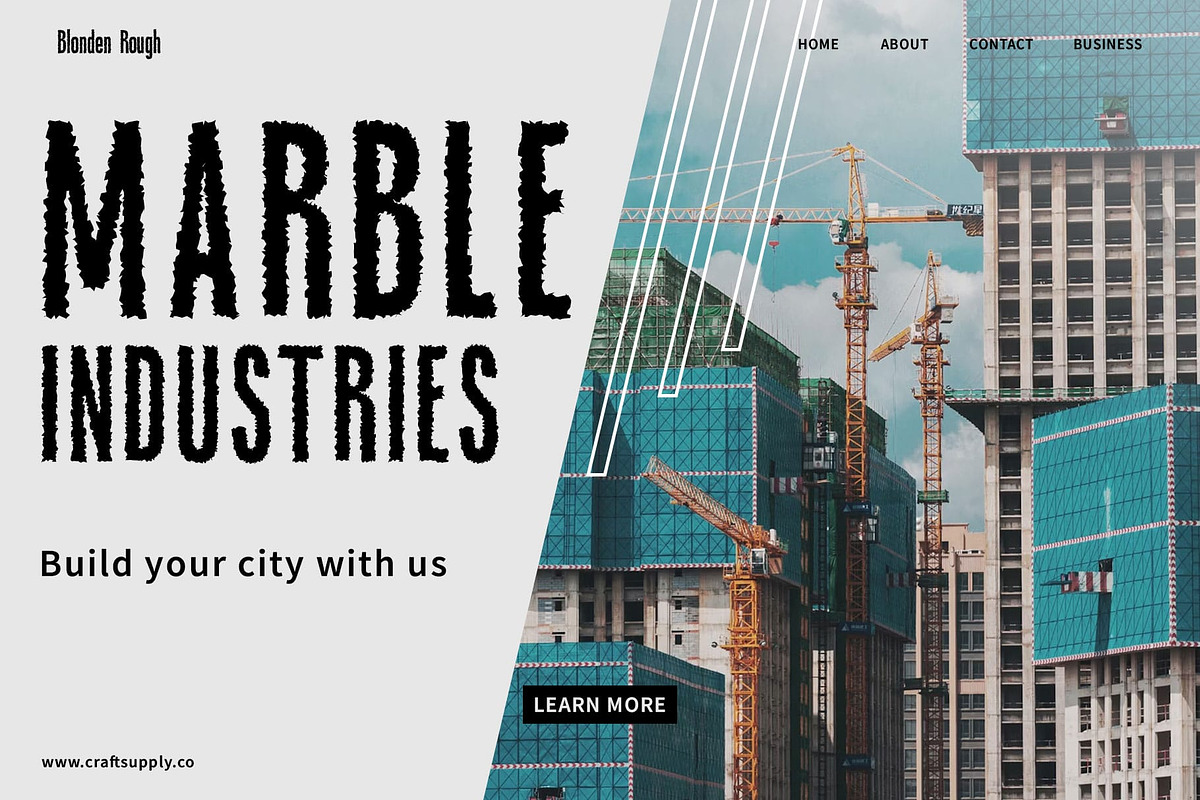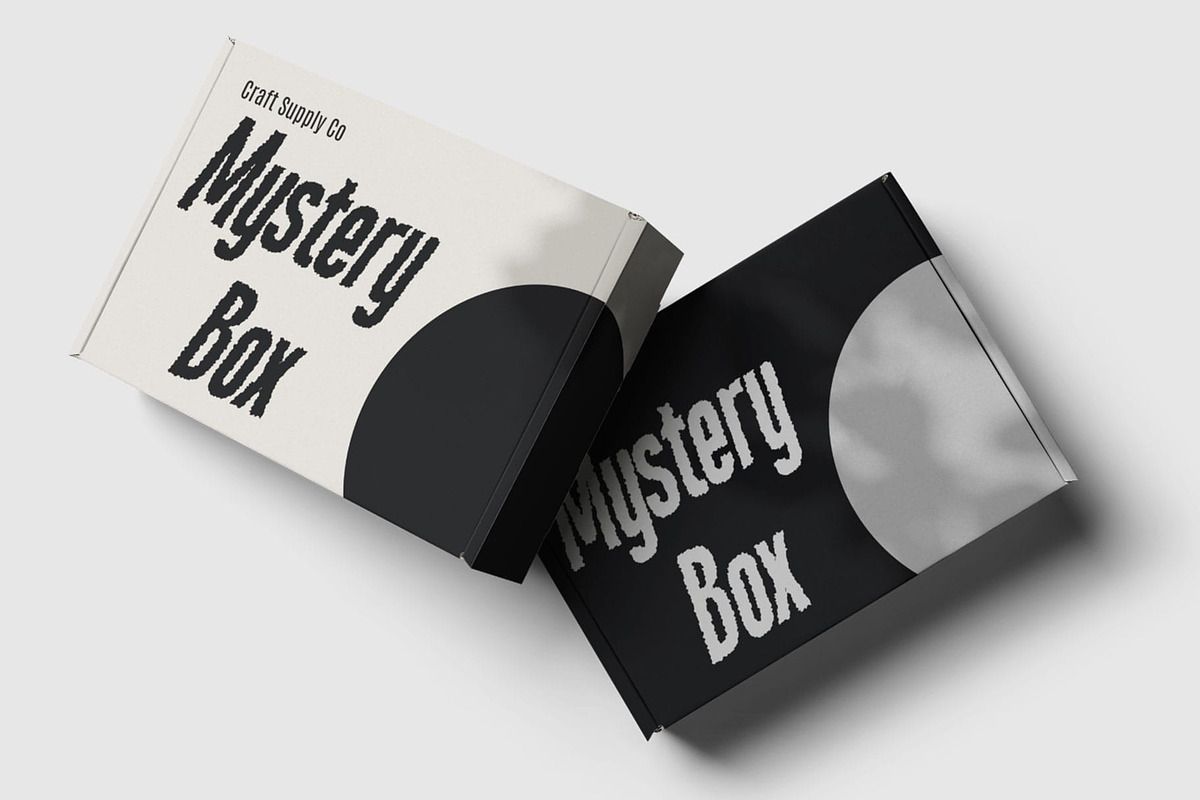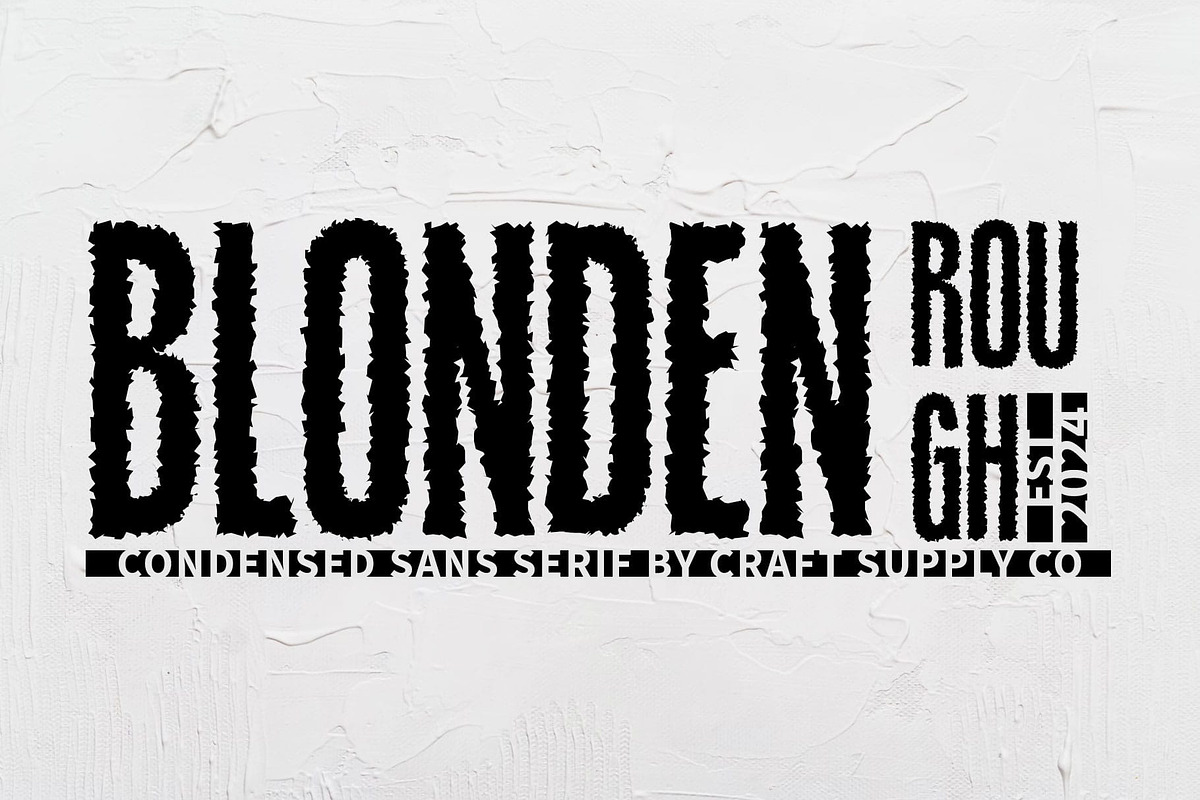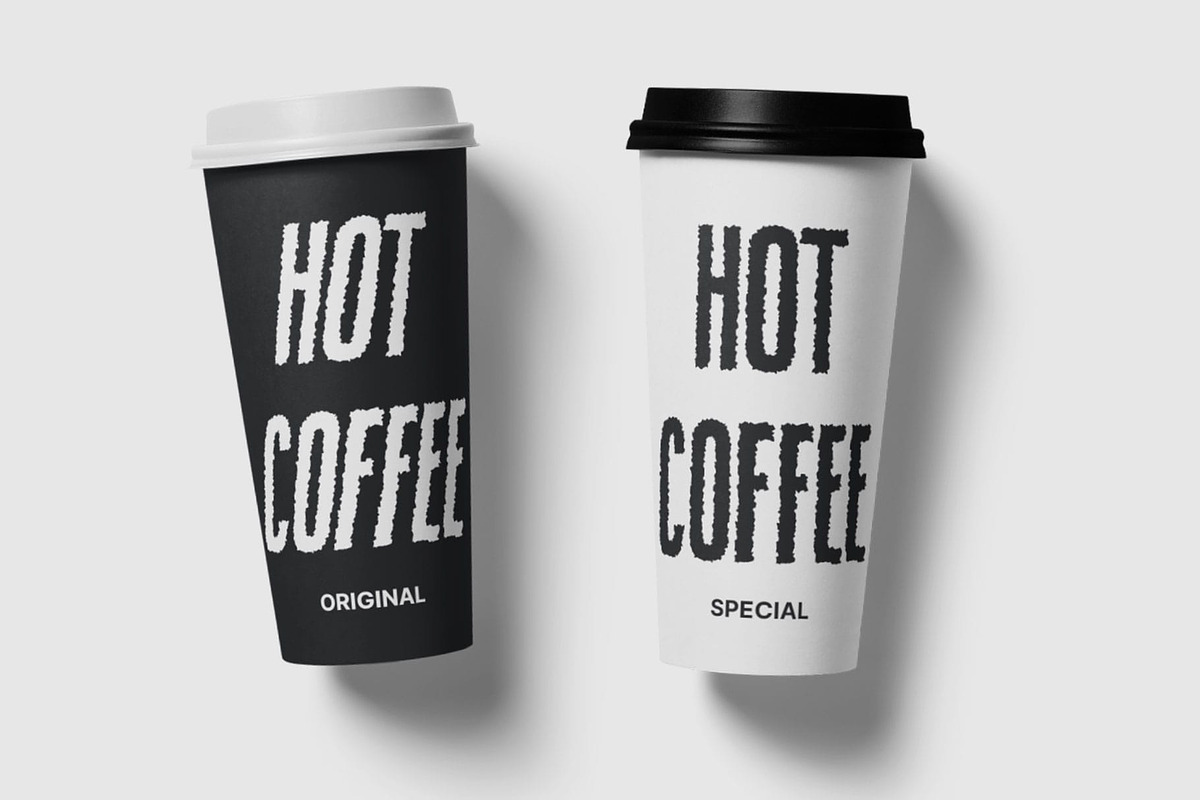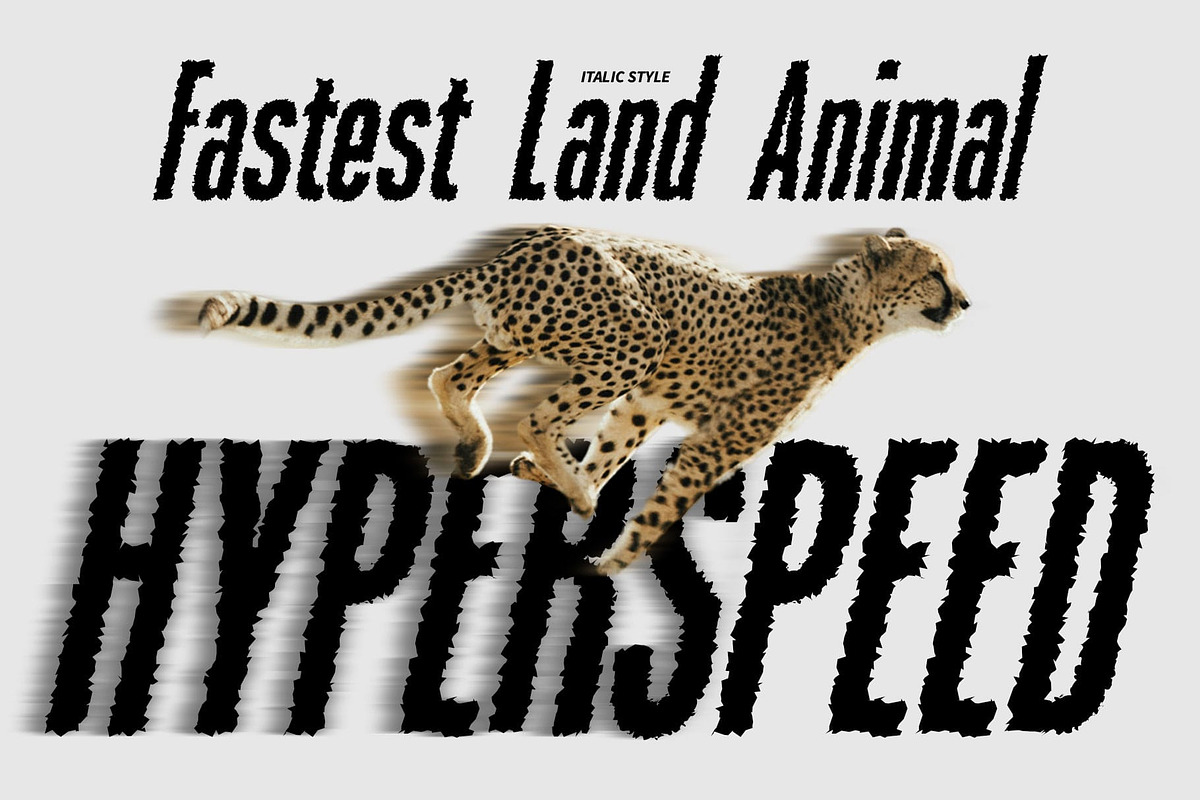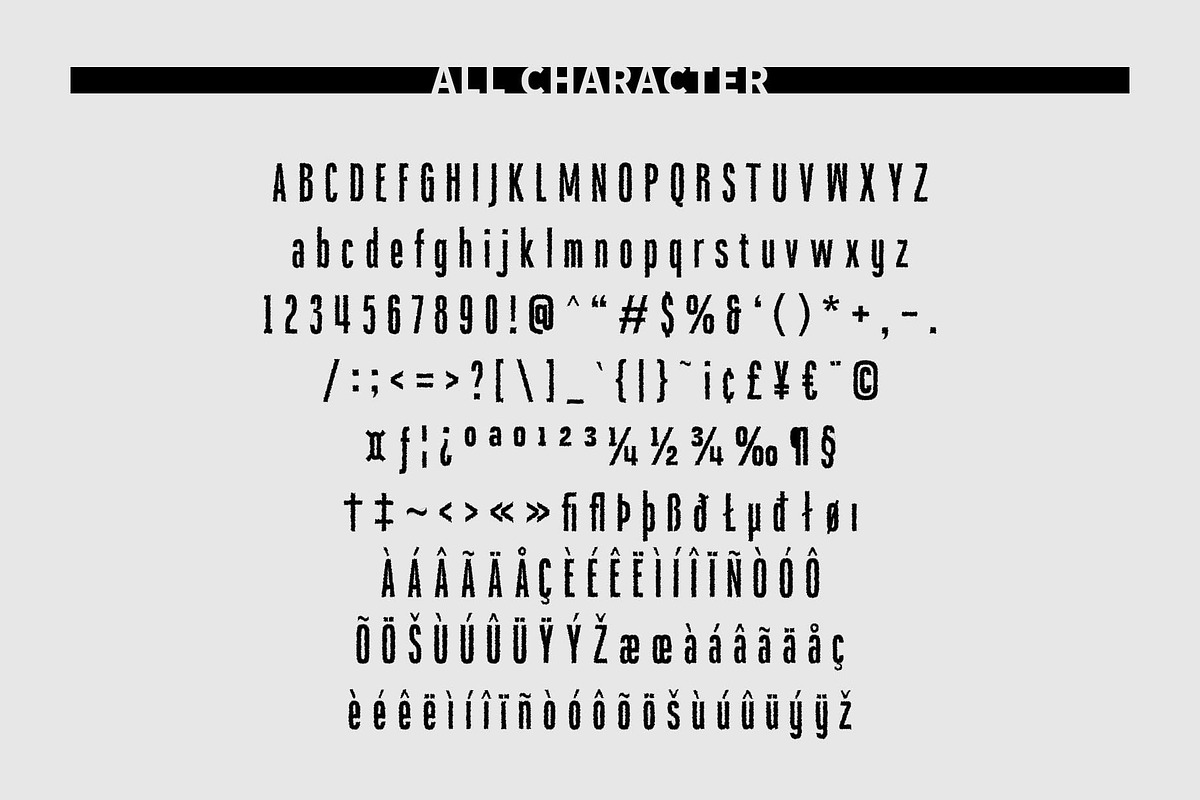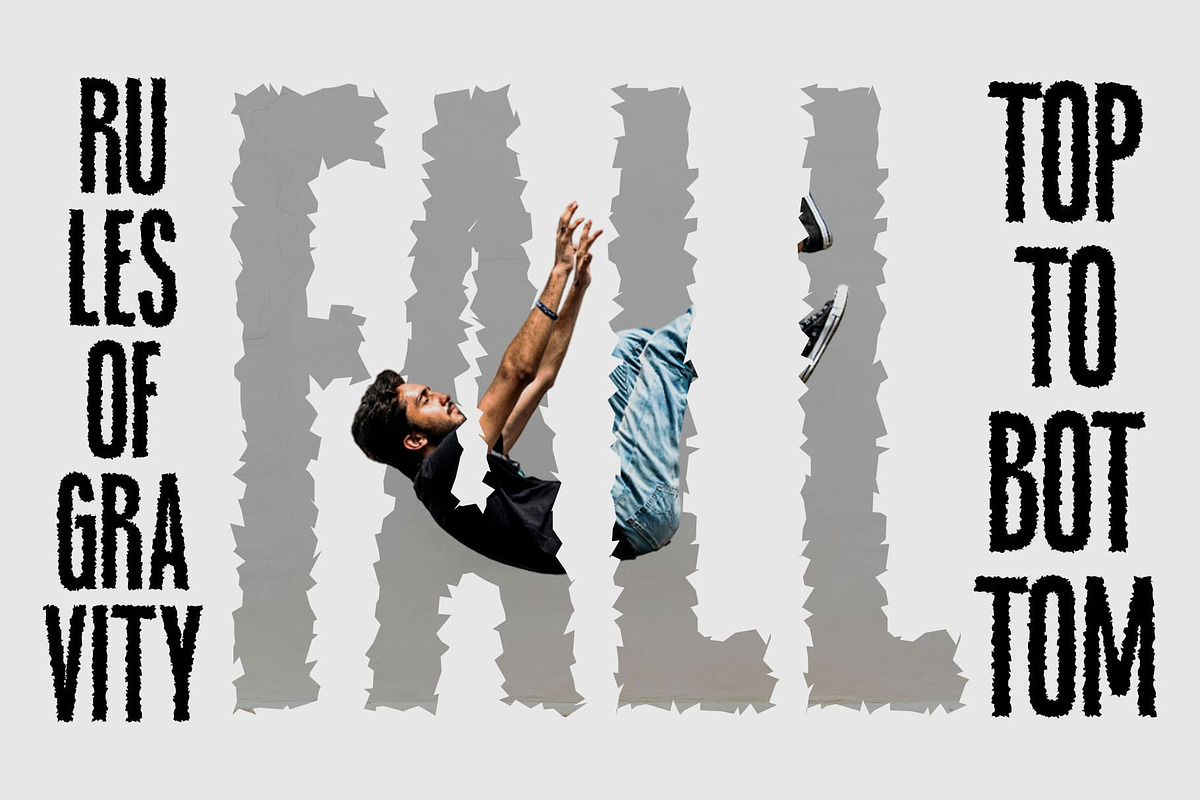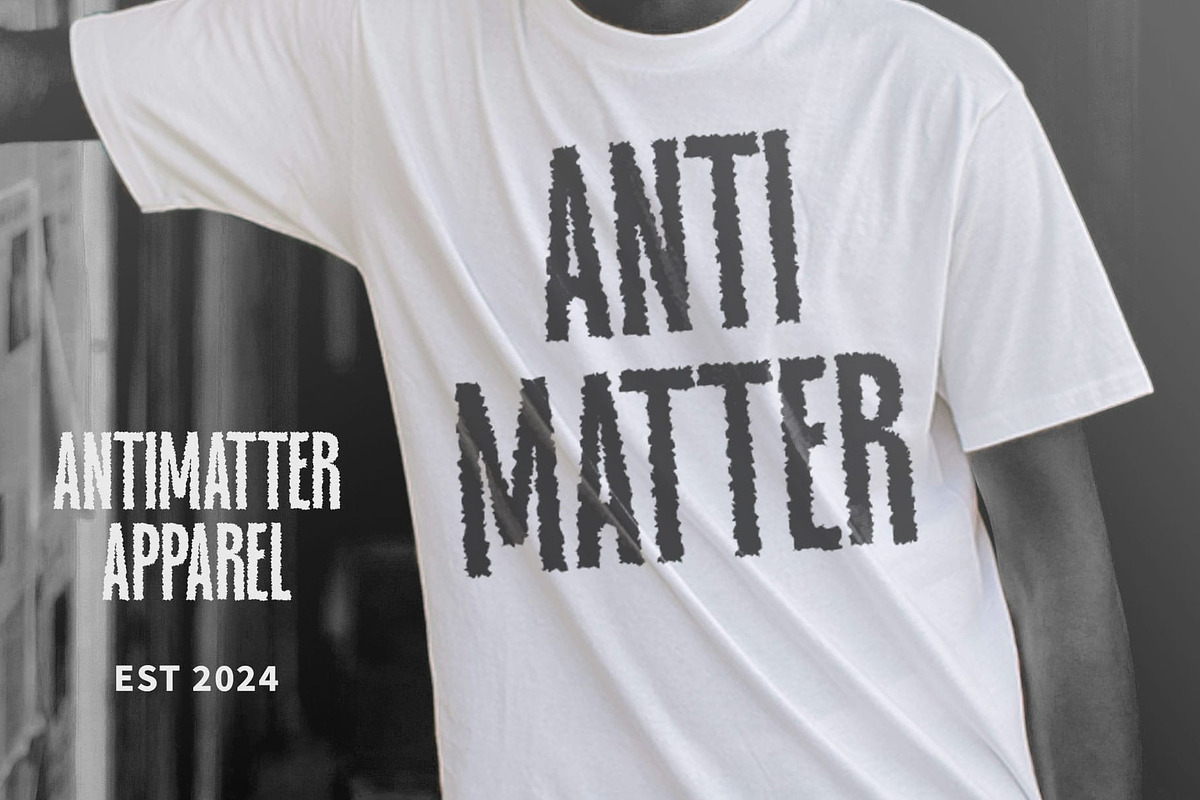
Blonden Rough
Blonden Rough: Vintage Charm in Condensed Sans Serif
Distinctive Sans Serif Design Blonden Rough presents a condensed sans serif typeface with a unique, eye-catching appeal. Its sleek and streamlined characters exude modernity and sophistication.
Vintage Aesthetic with Rough Touches The font captures a vintage aesthetic, enhanced by rough texture effects. These details add character and depth, infusing your designs with nostalgic charm.
Perfect for Display Purposes Tailored for display use, This font excels in headers, logos, and branding materials. Its condensed form ensures maximum impact in limited space, commanding attention effortlessly.
Versatility in Application Beyond its vintage allure, This font offers versatility in various design applications. From posters to packaging, its rugged elegance adds a touch of retro flair to any project.
Retro Elegance Redefined This font reinvents retro elegance with its condensed sans serif design and rough texture effects. Perfect for display purposes, it brings a vintage charm to modern projects, offering both style and functionality. Explore the allure of This font and infuse your designs with timeless sophistication.